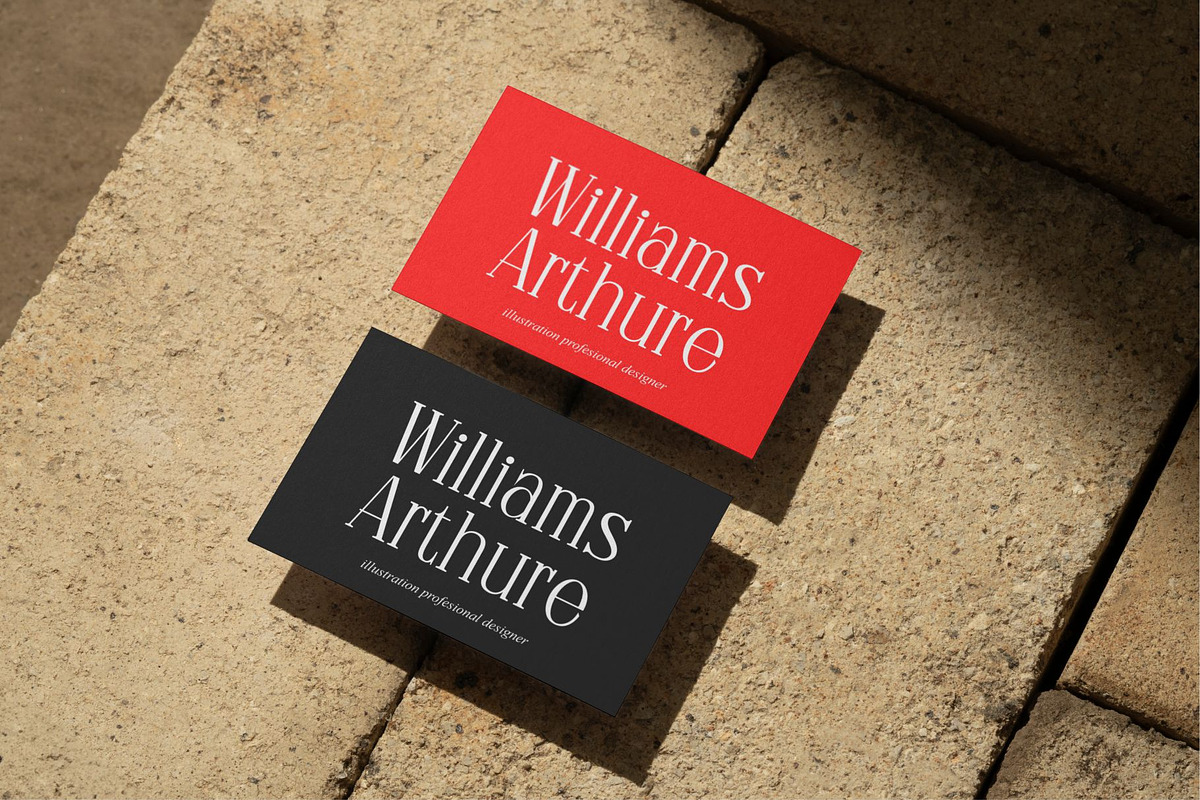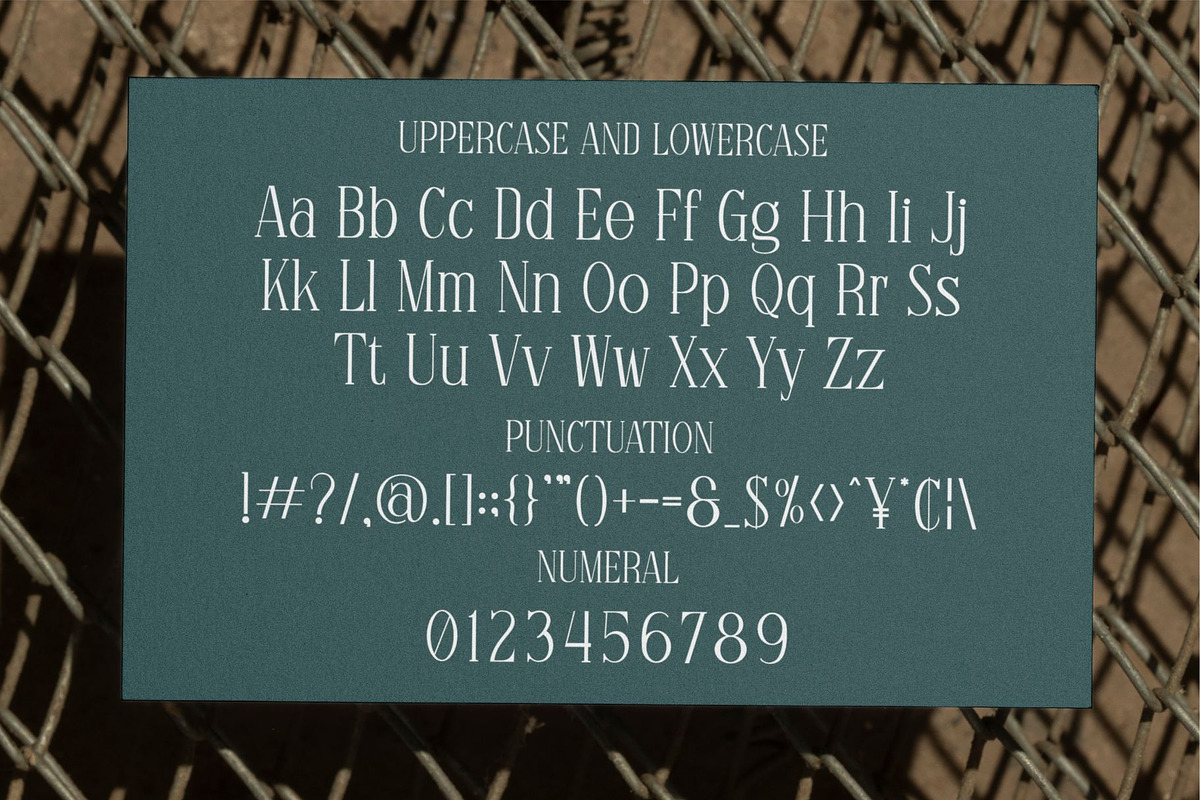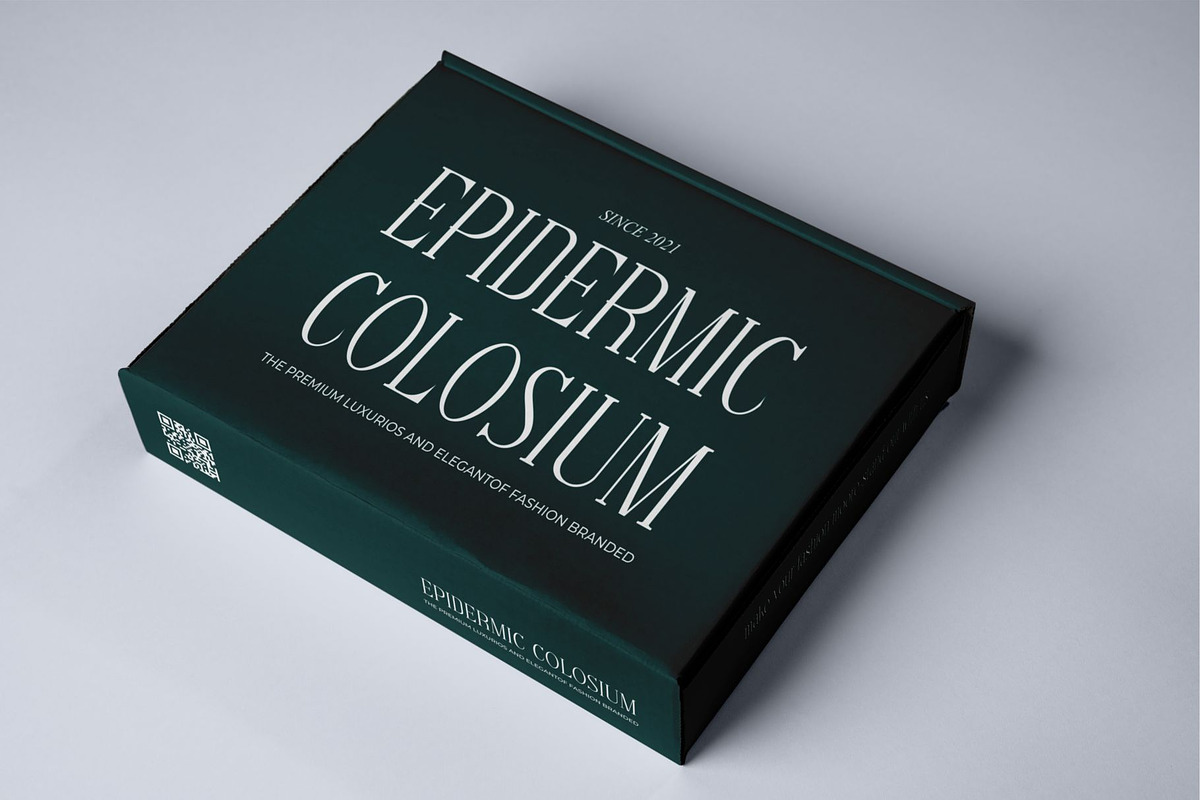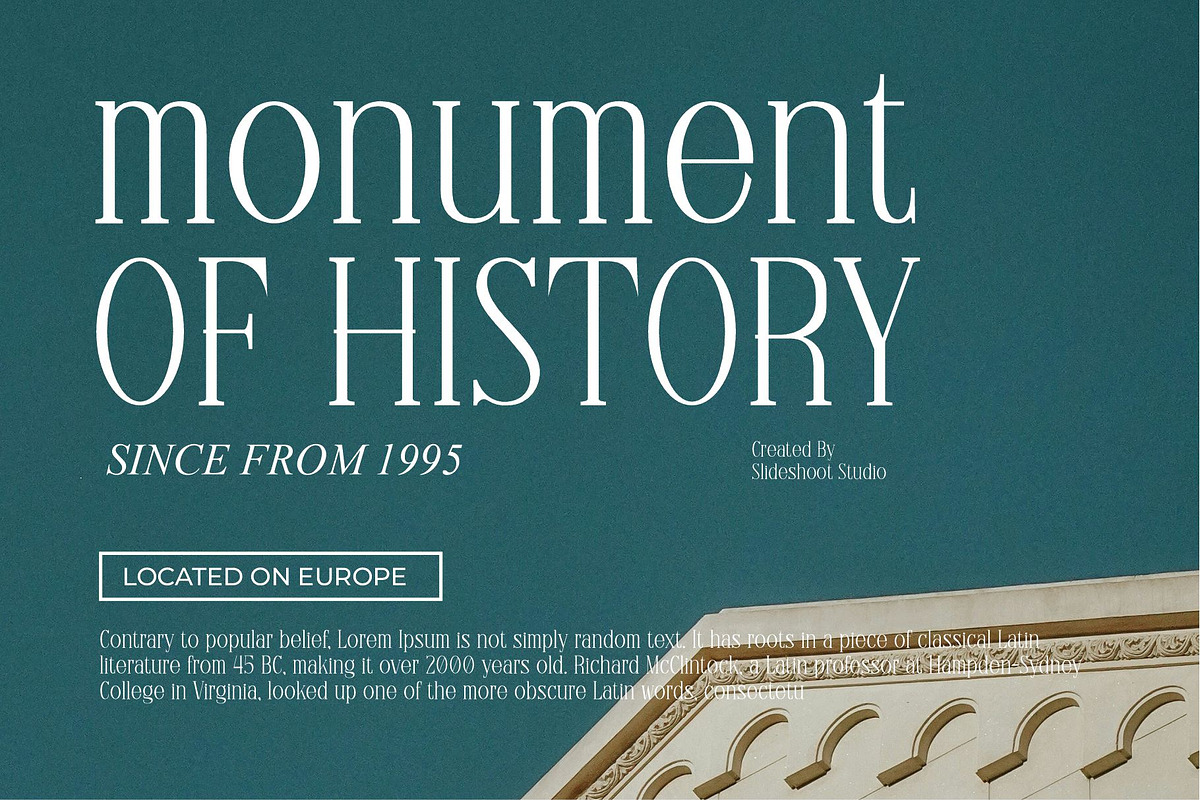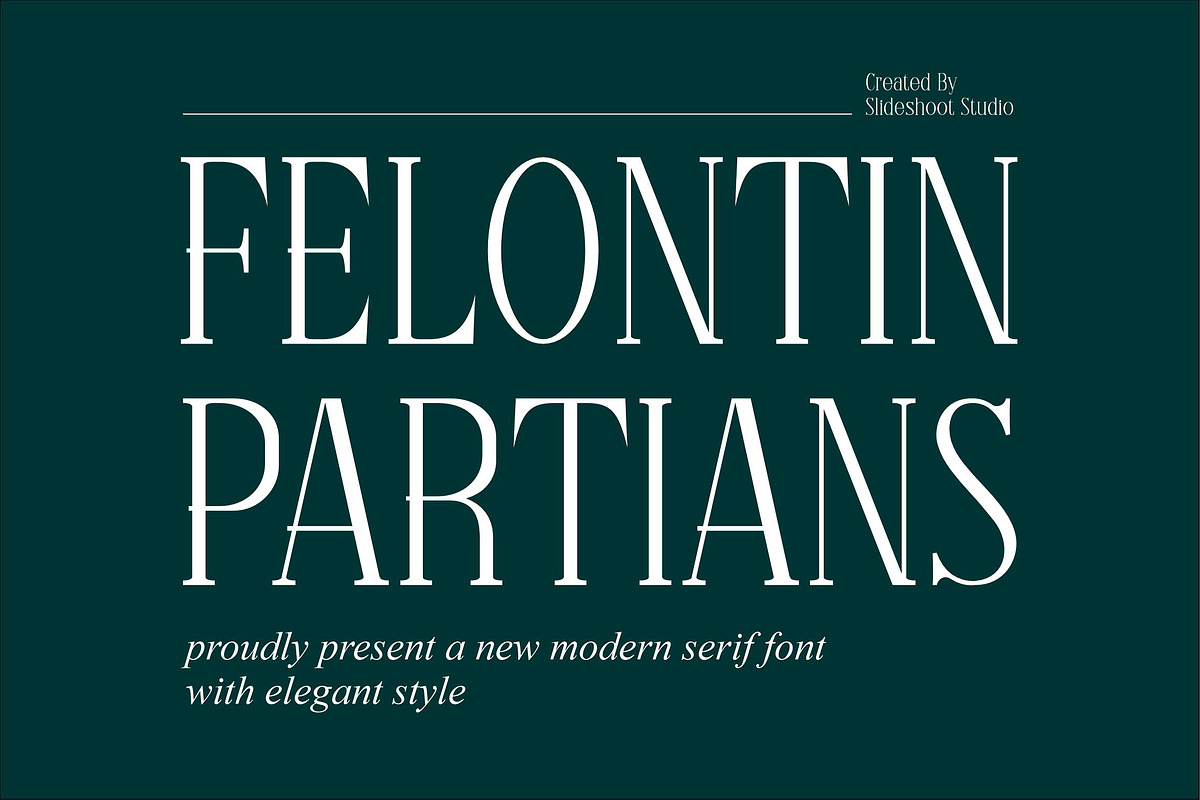
Felontin Partians || Modern Serif
Introducing Felontin Partians is serif font with classic style, trendy, bouncy and cute display font. It has a unique character with wood theme. It is perfect to be combined with invitation card designs, company logos, movie titles, movie names, business cards, book titles, brand names and various other designs.